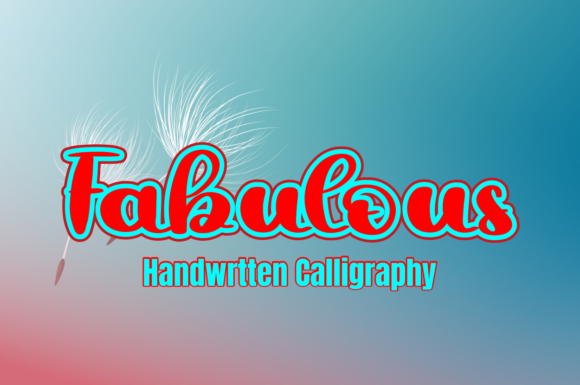
Feast your eyes on Fabulous Font, a display font that exudes charm and playfulness. Its adorable and whimsical nature is guaranteed to infuse your designs with a touch of delight.
Crafted with precision by Soegih Artwork, Fabulous Font possesses a unique personality that sets it apart from the ordinary. Its charming curves and playful strokes dance across the page, evoking a sense of joy and whimsy.
Whether you're a seasoned designer or just starting out, Fabulous Font is the perfect choice for adding a touch of magic to your projects. Its user-friendly nature makes it easy to work with, while its versatility allows it to complement a wide range of design styles.
Picture this: your next farmhouse sign, adorned with the beautiful letters of Fabulous Font. The words "Welcome to Our Home" leap off the wood, inviting your guests with a warm and cheerful embrace. Or perhaps you're creating a greeting card for a special occasion. With Fabulous Font, your heartfelt message will be conveyed with a touch of elegance and playfulness.